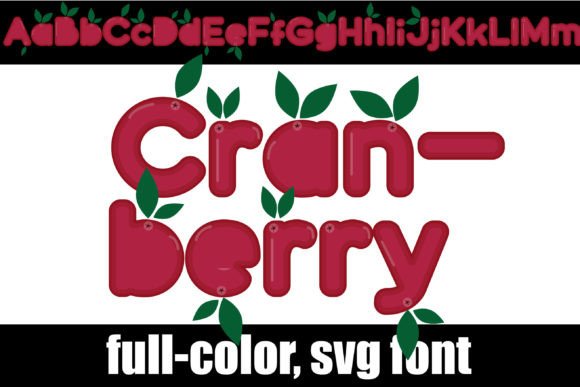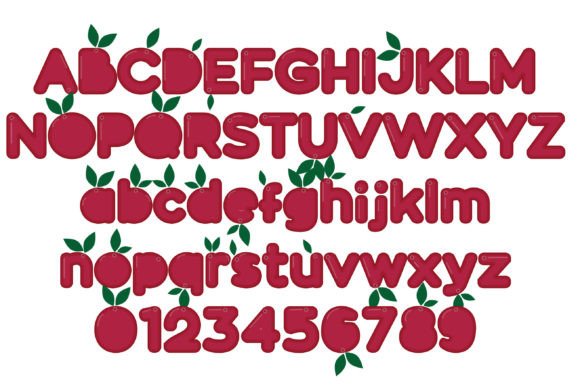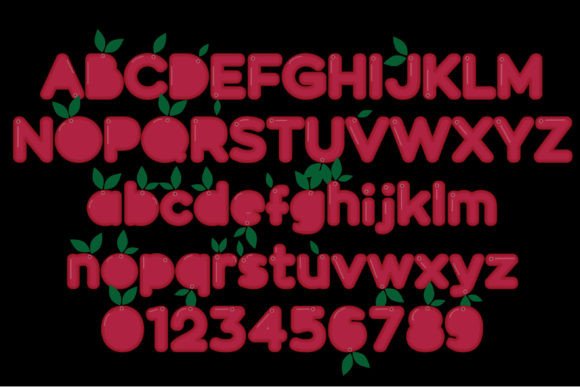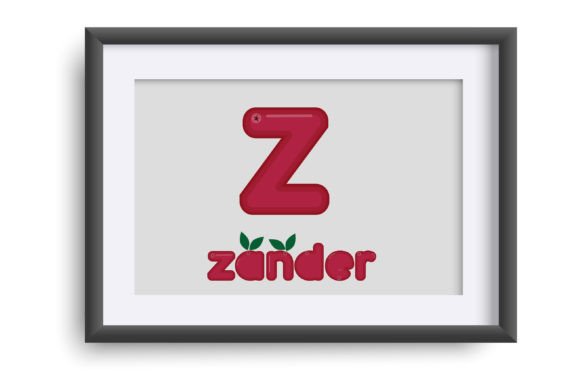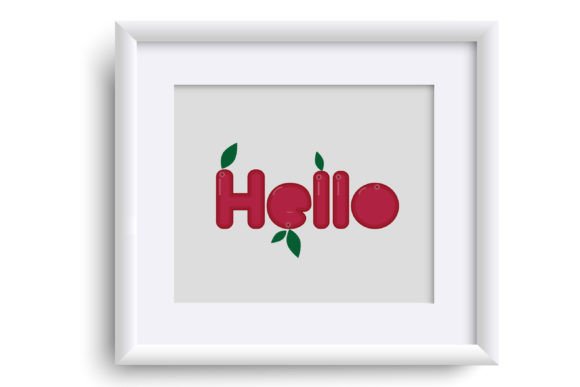
About Cranberry Font
Introducing Cranberry, a delightful full-color font that captures the essence of autumn with its cranberry-inspired lettering and occasional leaves. This unique font is the perfect addition to your cozy and seasonal projects, adding a touch of warmth and charm to your designs.
With Cranberry font, each letter is carefully crafted with cranberry-shaped elements, creating a whimsical and inviting look. The occasional leaves scattered throughout the font add an extra layer of detail and organic beauty. The font also features an alt case for each letter, offering small variations to provide even more creative possibilities.
Whether you’re designing autumn-themed invitations, greeting cards, posters, or any other cozy project, Cranberry font will elevate your designs and evoke a sense of comfort and seasonal cheer. Its vibrant and rich colors mimic the deep red hues of ripe cranberries, instantly setting a festive and inviting tone.
To make the most of Cranberry font, consider pairing it with complementary elements such as rustic textures, fall foliage, or other autumn-themed graphics. You can experiment with different colors to create a harmonious palette that reflects the cozy and inviting atmosphere of the season.
Cranberry font is versatile and can be used in various design applications, from digital designs to printed materials. Whether you’re working on a digital illustration, creating a social media post, or crafting a handmade card, Cranberry font will bring a delightful touch to your project.
So, embrace the cozy spirit of autumn and add Cranberry font to your creative toolbox. Watch as your designs come to life with the vibrant colors and playful elements of this delightful font. Get ready to impress and delight your audience with the warm and inviting charm of Cranberry font in your autumn projects.